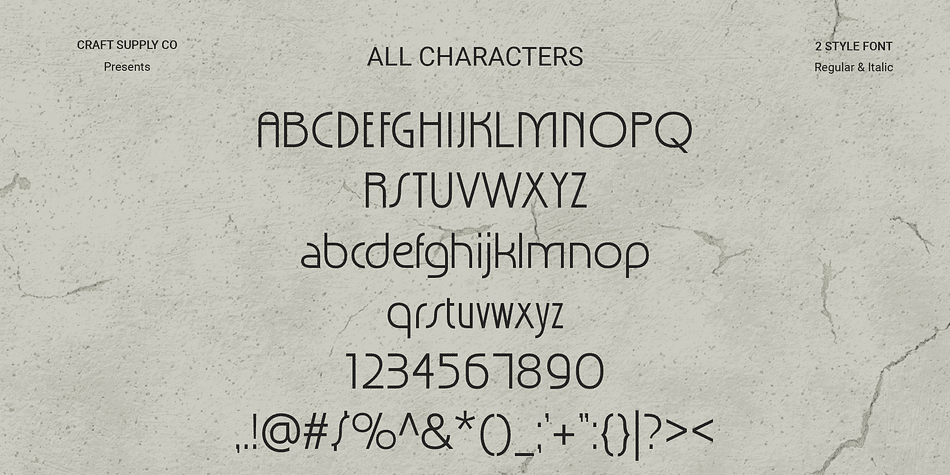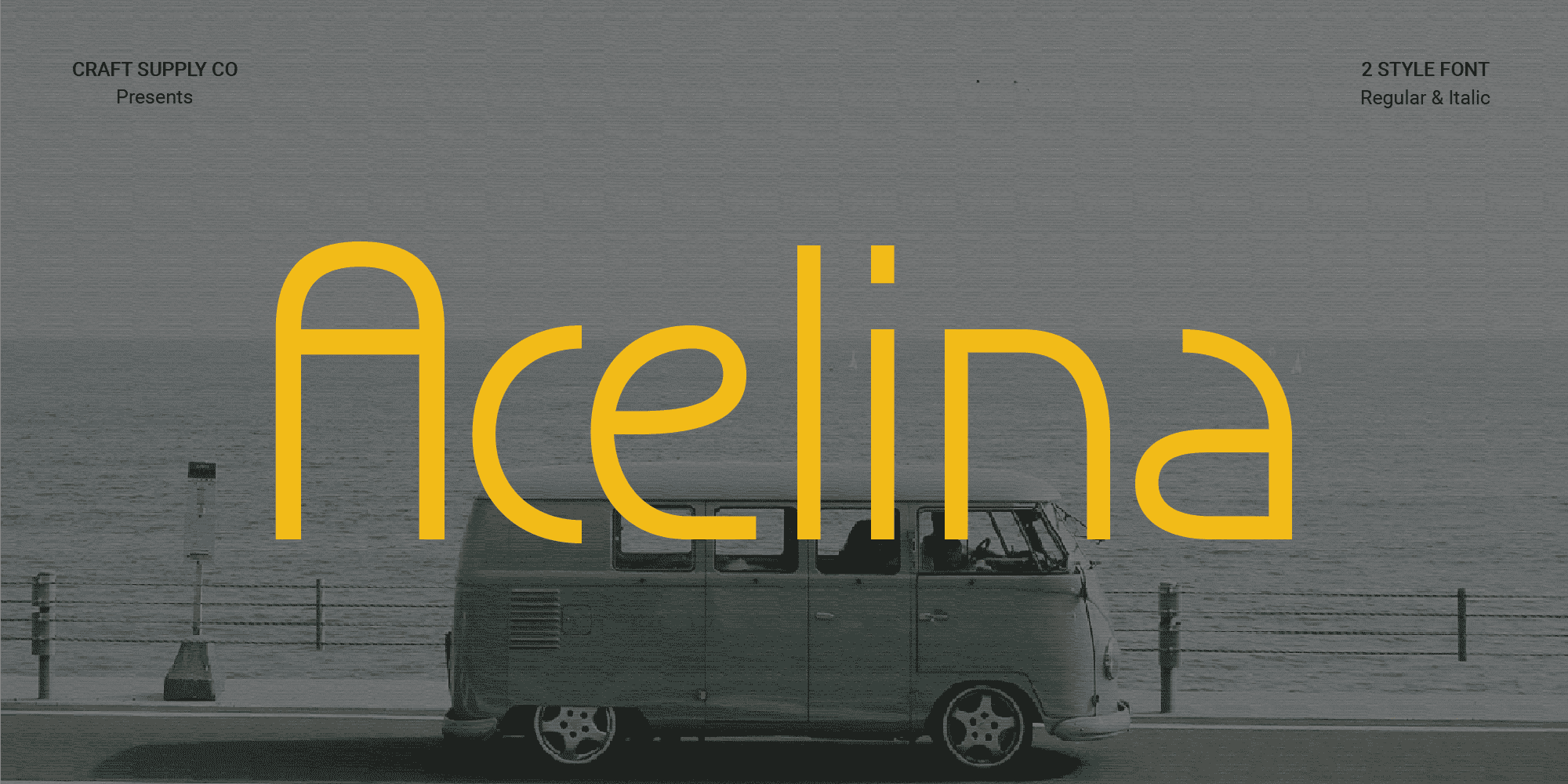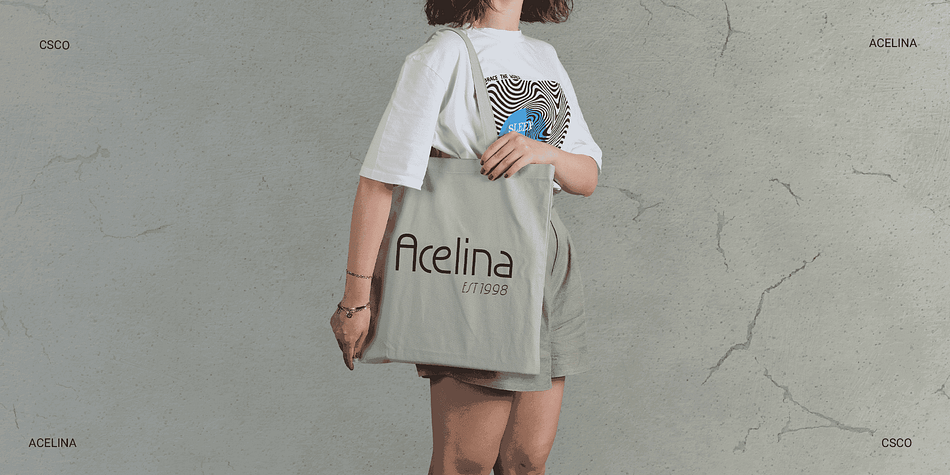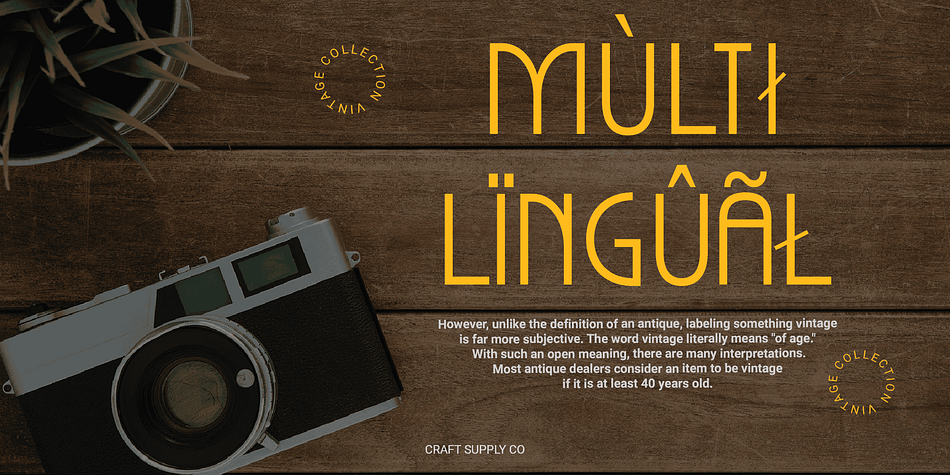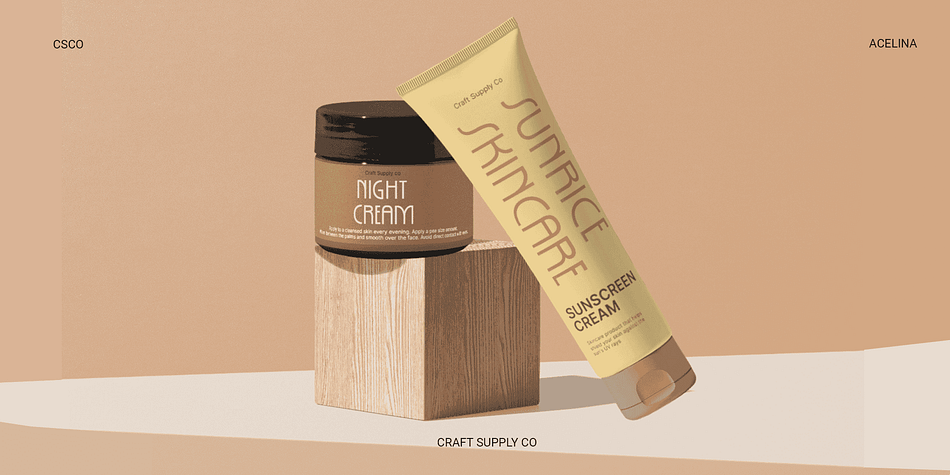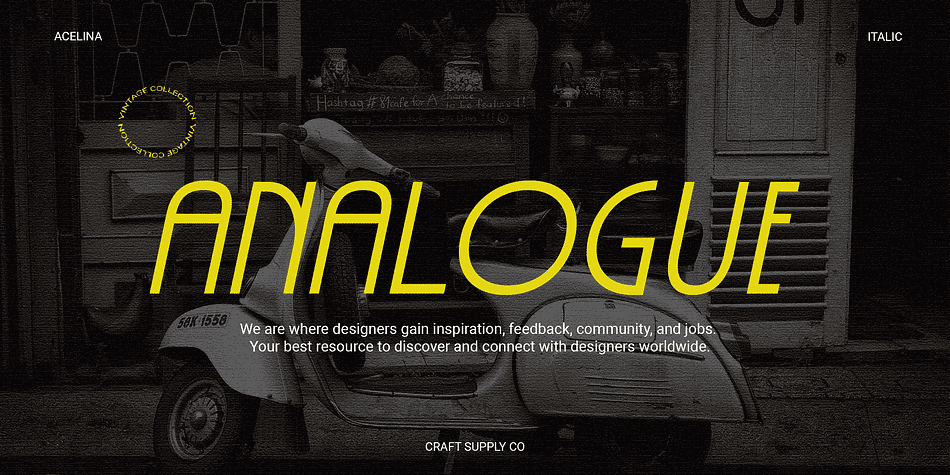
Acelina
Acelina is a retro font family. This typeface has two styles and was published by Craft Supply Co.
Acelina Font: The Essence of Simplicity in Monoline Sans Serif
Seamless Elegance
Acelina, a monoline sans-serif font, exudes a timeless simplicity, perfect for those seeking a harmonious and clean aesthetic.
Meticulous Precision
In the world of fonts, Acelina stands out with its meticulous precision, each character crafted with care to maintain a consistent and clean appearance.
Versatility Unleashed
Whether for a corporate document, website, or print material, Acelina seamlessly adapts, ensuring your content appears effortlessly neat and professional.